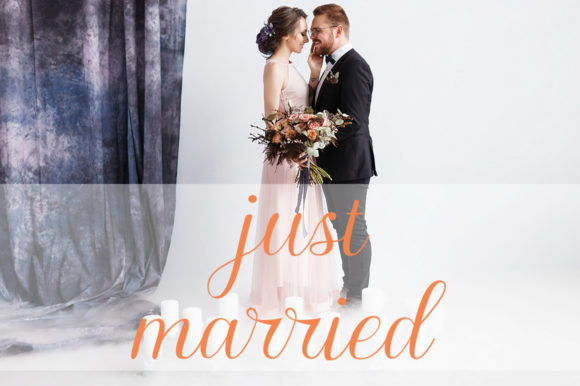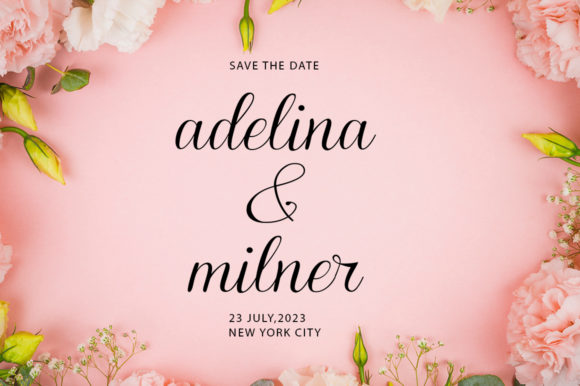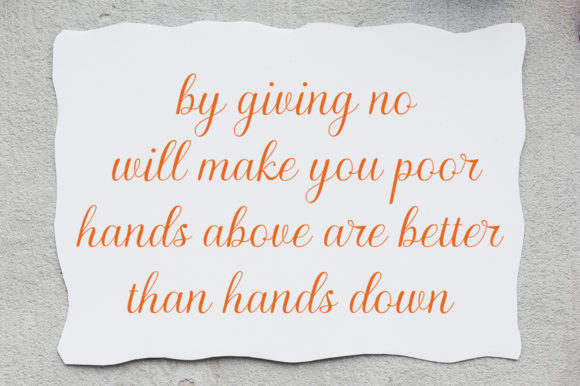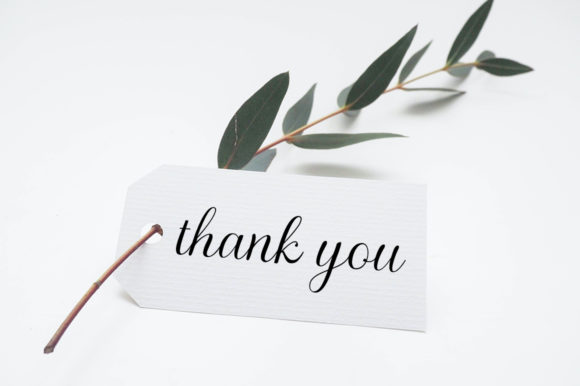
Billy Queen Font: Add a Touch of Romance to Your Designs
Are you looking for a font that can add a romantic feel to your designs? Look no further than the Billy Queen Font. This enchanting handwritten font is perfect for a wide range of applications, from greeting cards to headlines, and is sure to make your project stand out.
What is Billy Queen Font?
Billy Queen is a versatile script font that is designed to add a touch of elegance and romance to your designs. With its beautiful, flowing script and intricate details, this font is perfect for designers and crafters who want to create stunning visual content.
Key Features of Billy Queen Font
- Handwritten Script: Billy Queen Font is a beautiful handwritten script font that is designed to look like it was written with a pen. The font has a natural, flowing look that is perfect for creating romantic and elegant designs.
- PUA Encoded: This font is PUA encoded, which means that you can access all of the beautiful glyphs and swashes with ease. This makes it easy to create stunning designs that are full of personality.
- Versatile: Billy Queen Font is a versatile font that can be used for a wide range of applications, from greeting cards to headlines. It’s perfect for designers and crafters who want to create a variety of different designs.
Uses for Billy Queen Font
Billy Queen Font is perfect for a wide range of design applications, including:
- Greeting Cards: Add a touch of romance to your greeting cards with Billy Queen Font. This font is perfect for creating beautiful, heartfelt messages that will make your cards stand out.
- Headlines: Use Billy Queen Font to create stunning headlines that will grab attention. This font is perfect for creating eye-catching titles and headings that will make your designs pop.
- Social Media Graphics: Billy Queen Font is perfect for creating social media graphics that are full of personality. Use this font to create stunning posts and stories that will engage your audience.
- Branding: Use Billy Queen Font to create a consistent brand identity. This font is perfect for creating logos, business cards, and other branding materials that are elegant and sophisticated.
Tips for Using Billy Queen Font
Here are a few tips for using Billy Queen Font in your designs:
- Use it sparingly: While Billy Queen Font is a beautiful font, it can be overwhelming if used too much. Use it sparingly to create a sense of elegance and sophistication.
- Pair it with other fonts: Billy Queen Font pairs well with other fonts, such as sans-serif fonts. Experiment with different font combinations to create a unique look.
- Experiment with colors: Billy Queen Font looks great in a variety of colors. Experiment with different colors to find the one that works best for your design.
Billy Queen Font is a beautiful, enchanting handwritten font that is perfect for designers and crafters who want to add a touch of romance to their designs. With its PUA encoding and versatile design, this font is perfect for a wide range of applications. Whether you’re creating greeting cards, headlines, or social media graphics, Billy Queen Font is sure to make your project stand out.
In conclusion, Billy Queen Font is a stunning script font that is perfect for designers and crafters who want to create beautiful, romantic designs. With its PUA encoding and versatile design, this font is sure to become a favorite in your design arsenal.